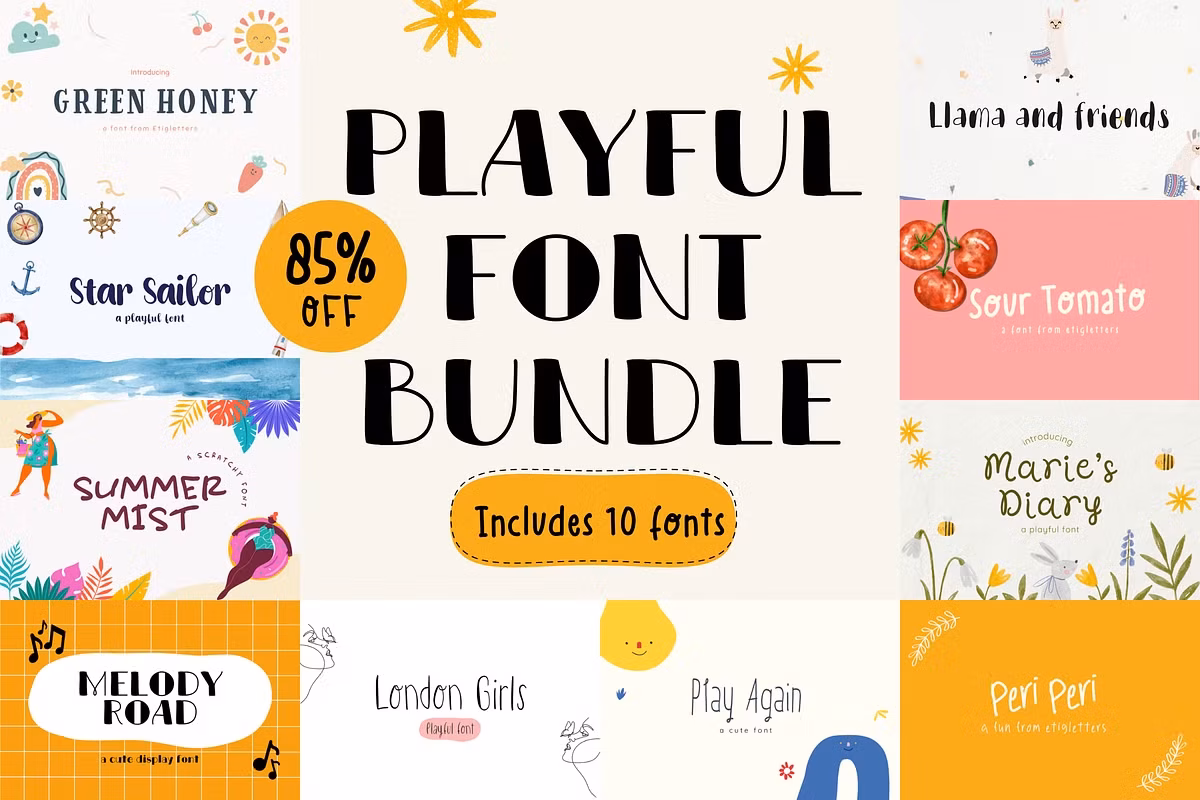
Playful Font Bundle Free Download is a vibrant and fun collection of fonts designed to bring energy and personality to your creative projects. With a mix of quirky scripts, bubbly display fonts, and whimsical sans-serifs, this bundle is perfect for kids' products, party invitations, social media graphics, branding, and anything that needs a cheerful, lighthearted vibe.
Each typeface in the bundle has its own unique charm, making it easy to mix and match styles while maintaining a cohesive and colorful look. Whether you're creating playful packaging or a joyful digital design, this bundle gives you the tools to express creativity in the most delightful way.